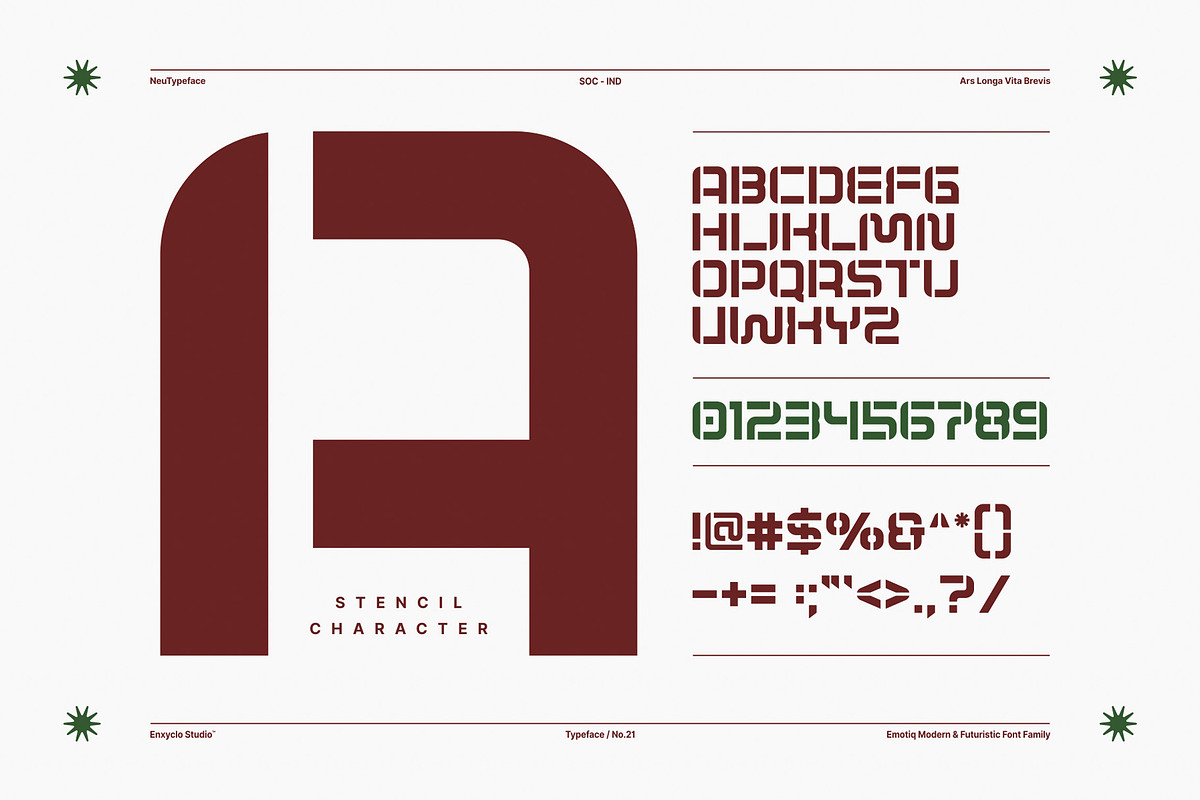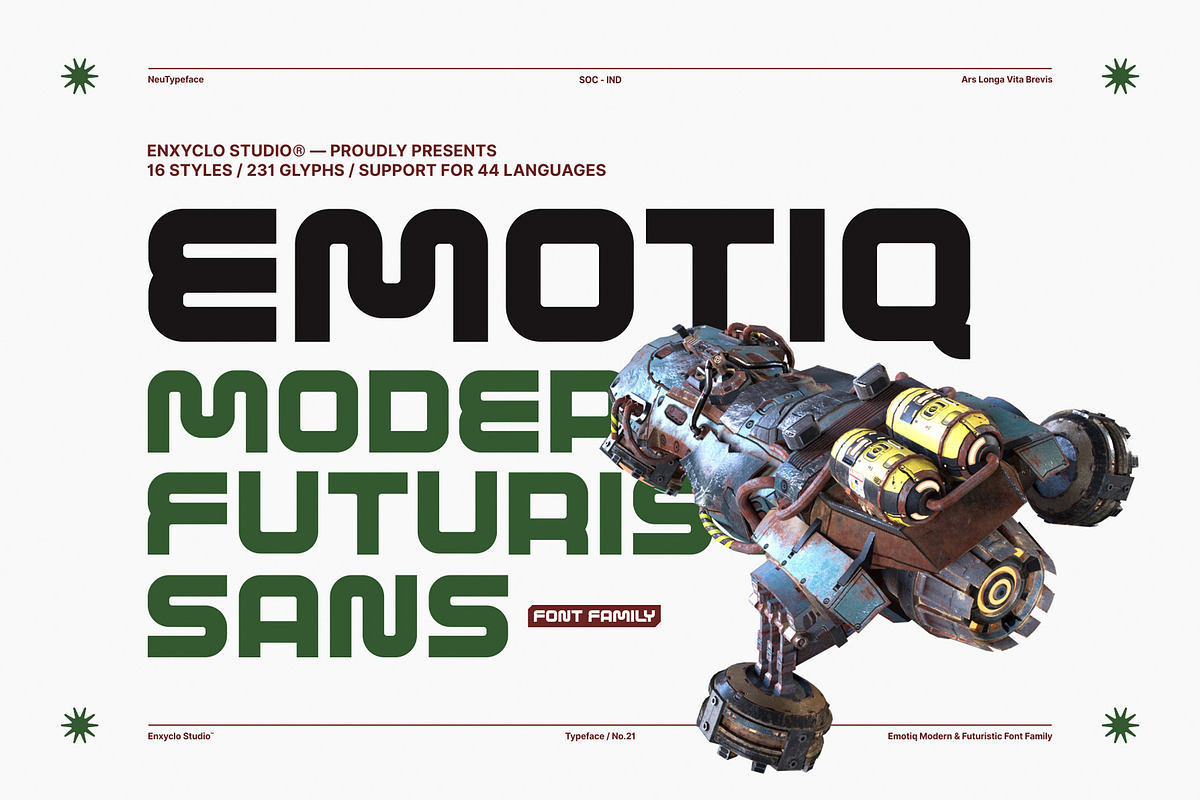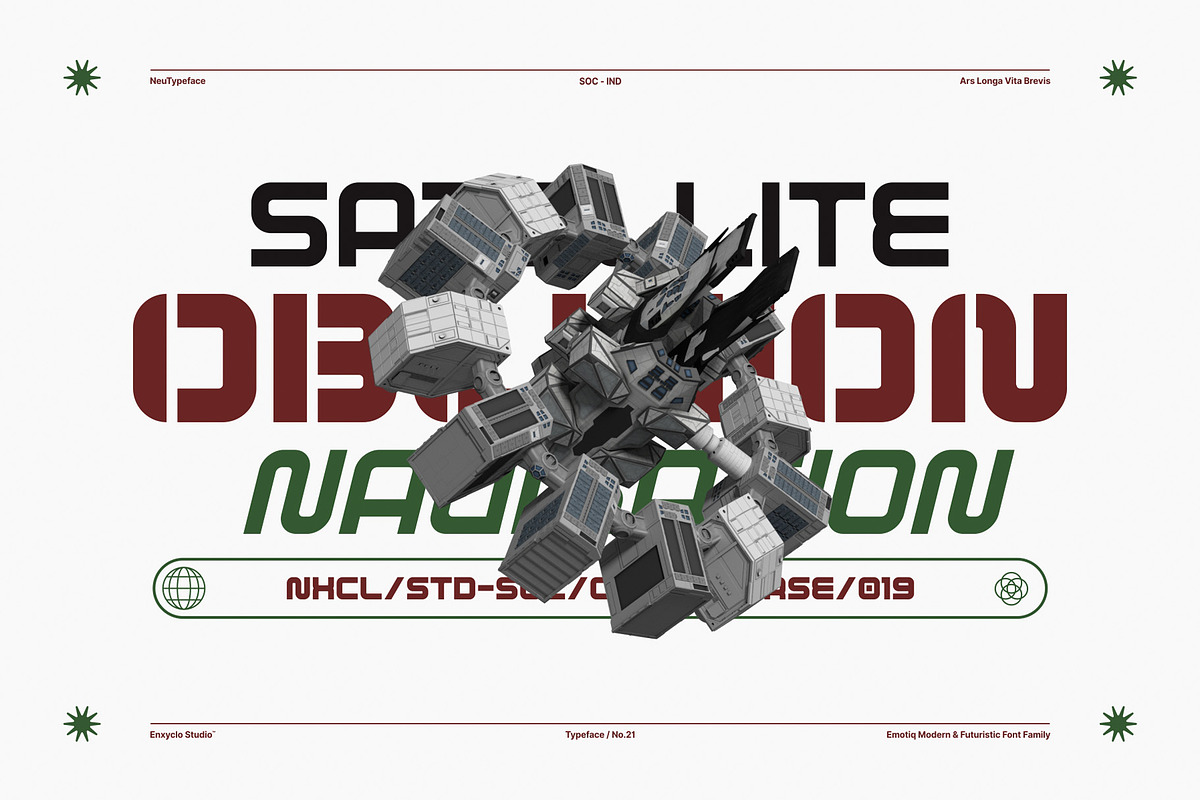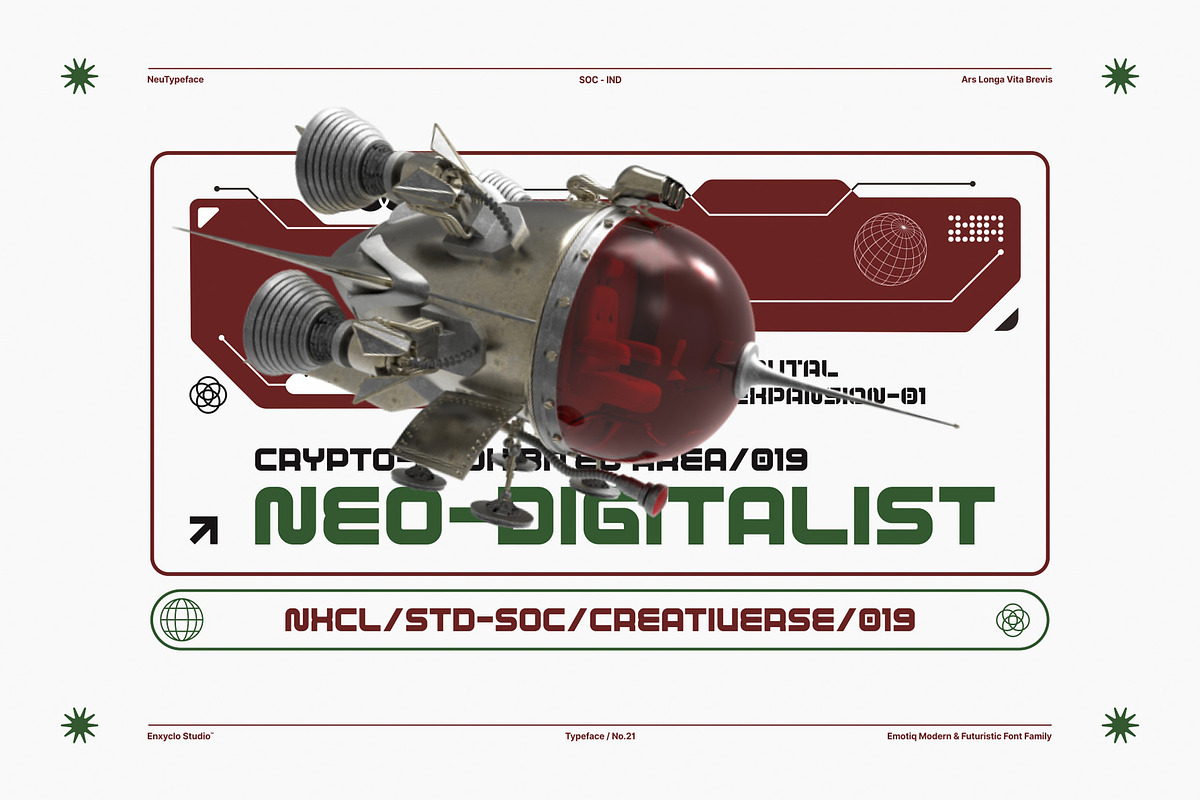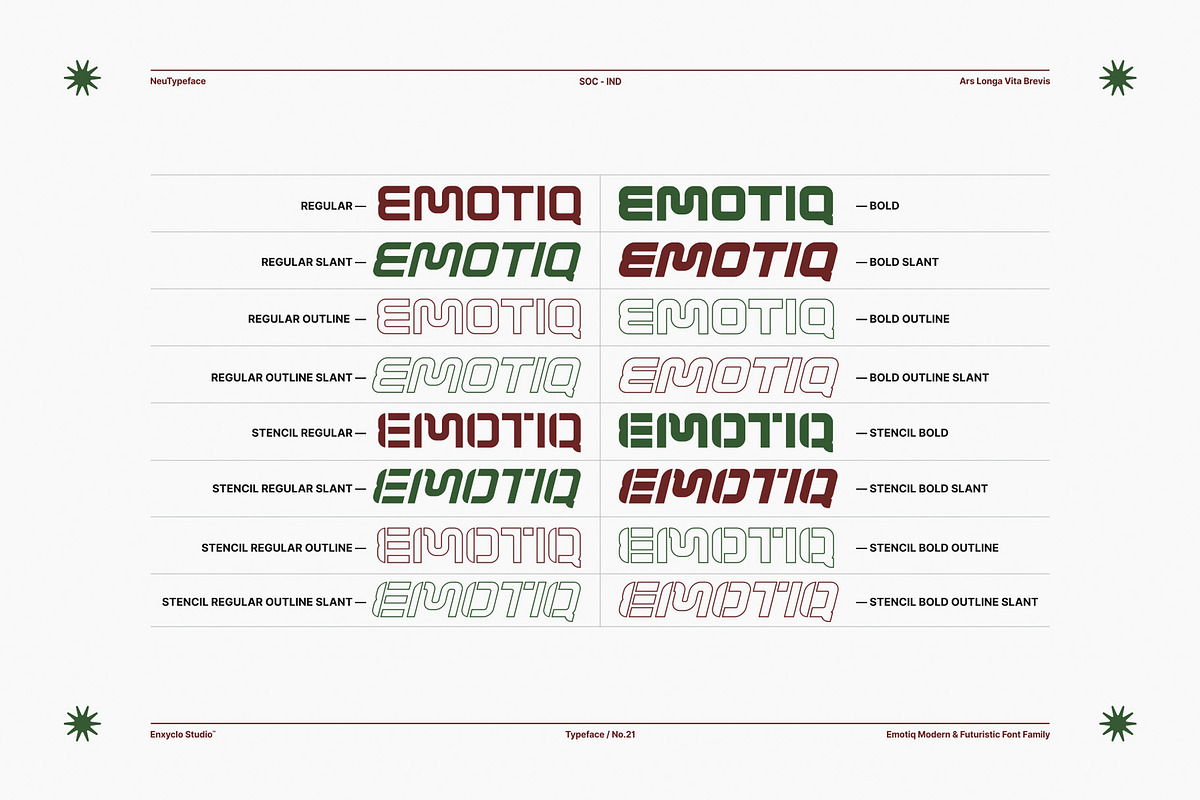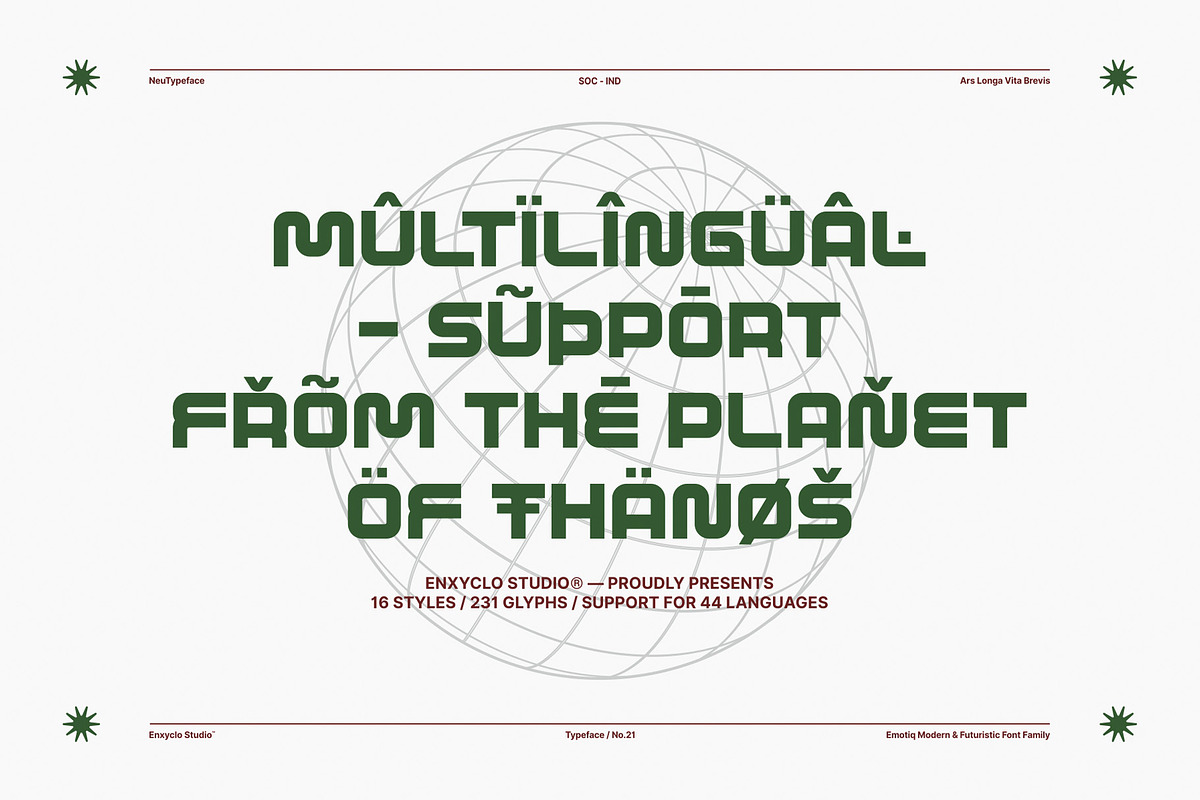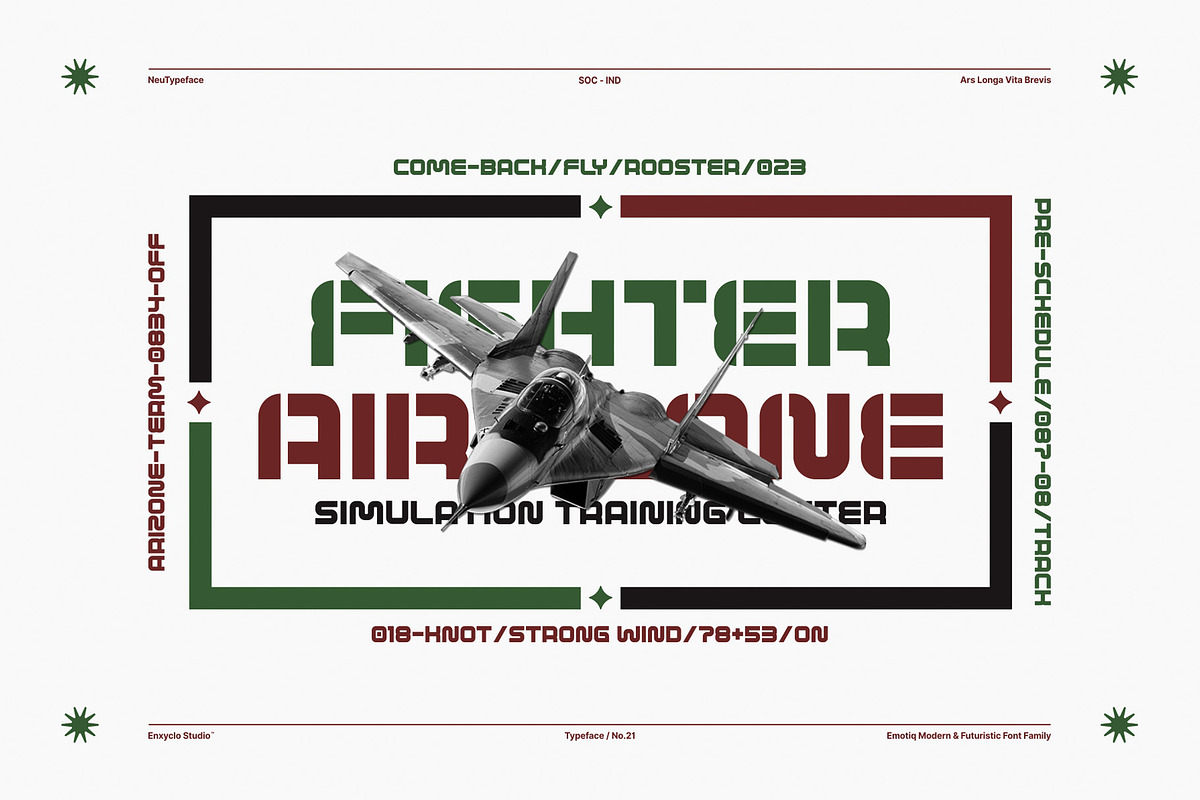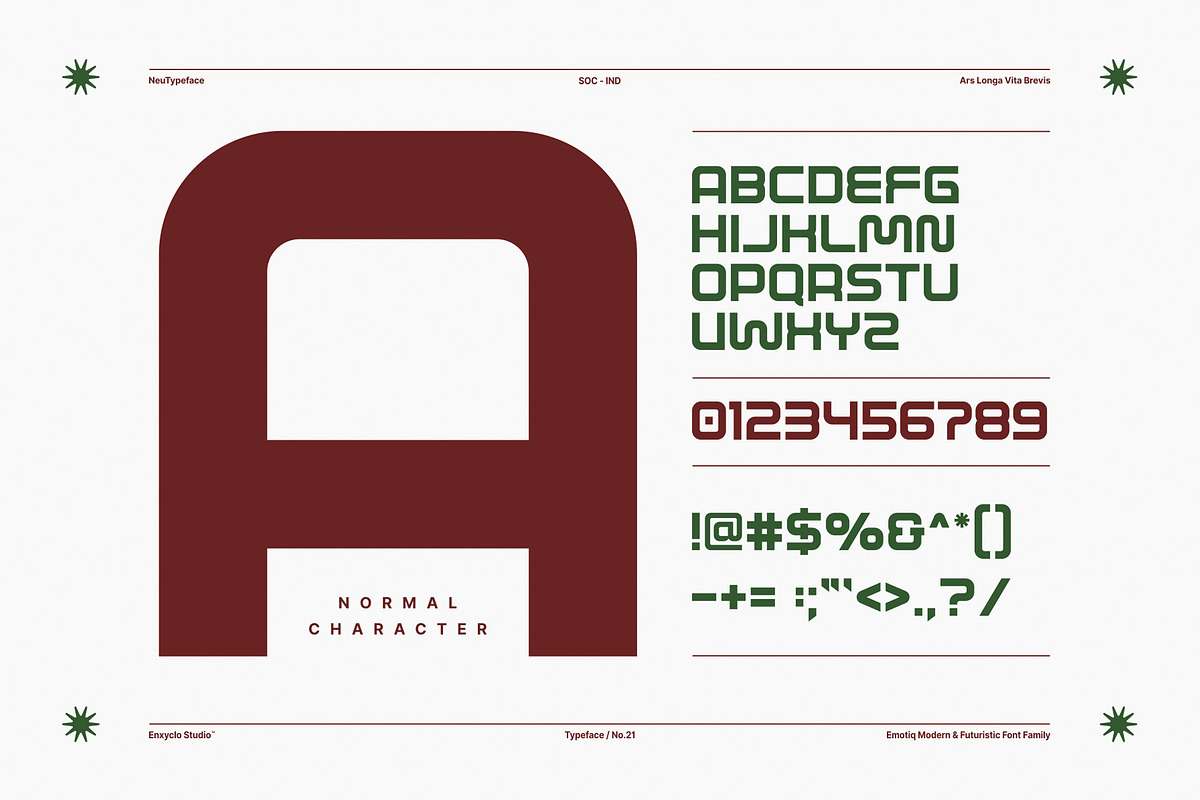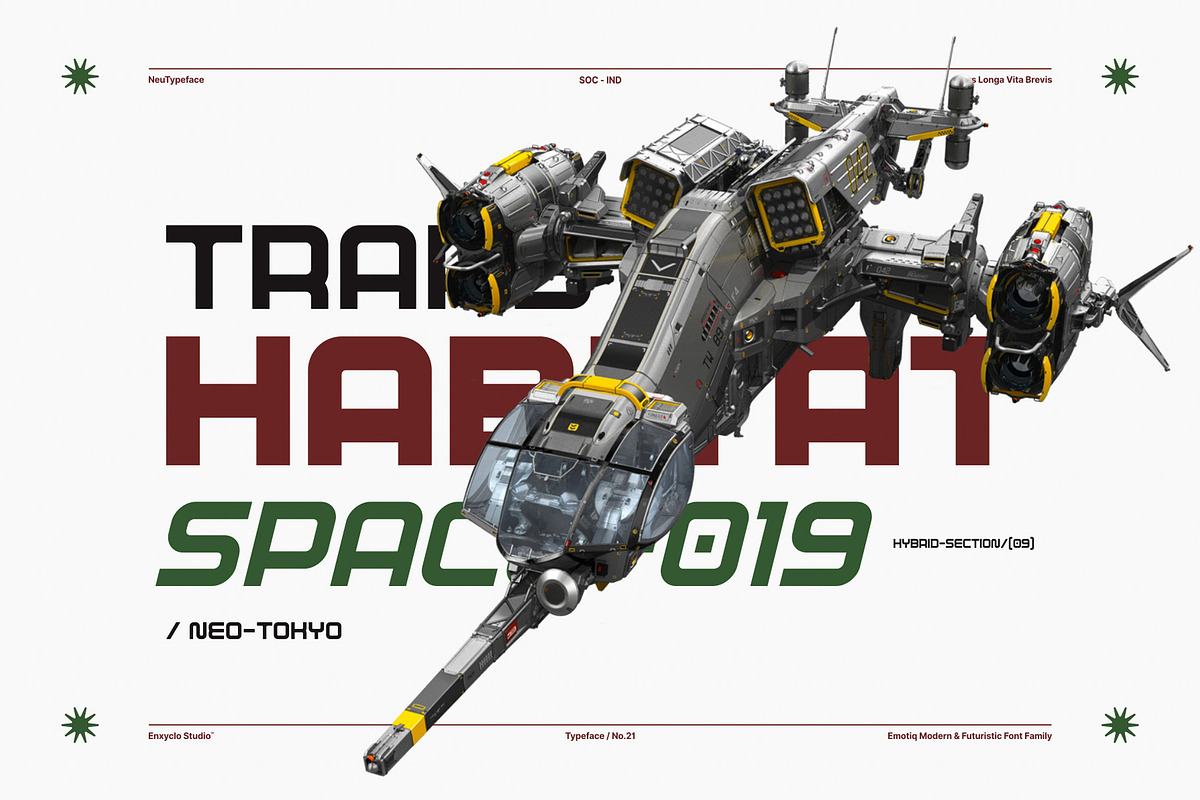
EMOTIQ - Futuristic Font Family
EMOTIQ is modern and futuristic sans display font family with multiple styles. With this unique typeface, you can be even more expressive in your design projects. It is perfect for headline, billboard, magazines, website, titles, poster, branding, and logos. With this beautiful font, absolutely you can make your project stand out from the rest. See the previews above to get some inspiration on how to use them.
- 16 Styles: Regular, Slant, Outline, Outline Slant, Bold, Bold Slant, Bold Outline, Bold Outline Slant, Stencil Regular, Stencil Regular Slant, Stencil Regular Outline, Stencil Regular Outline Slant, Stencil Bold, Stencil Bold Slant, Stencil Bold Outline, and Stencil Bold Outline Slant.
- Contains 231 Glyphs for Each Style (Total: 3.696 Glyphs)
- Uppercase, Numeral, Punctuation & Symbol
- Multilingual Support. Support for 44 languages: Asu, Bemba, Bena, Chiga, Cornish, Embu, English, Estonian, Filipino, Gusii, Indonesian, Kabuverdianu, Kalenjin, Kamba, Kikuyu, Kinyarwanda, Luo, Luyia, Machame, Makhuwa-Meetto, Makonde, Meru, Morisyen, North Ndebele, Nyankole, Oromo, Quechua, Rombo, Rundi, Rwa, Samburu, Sangu, Shambala, Shona, Soga, Somali, Swahili, Swiss, German, Taita, Teso, Uzbek (Latin), Volapük, Vunjo, Zulu.